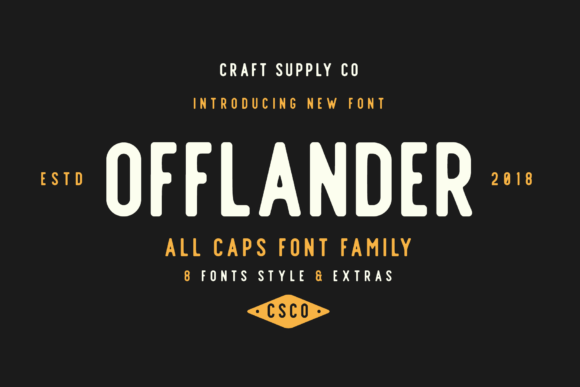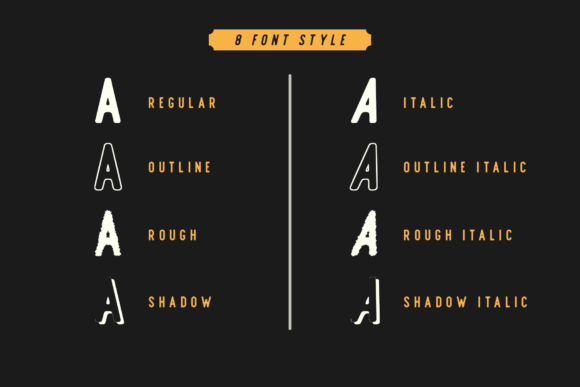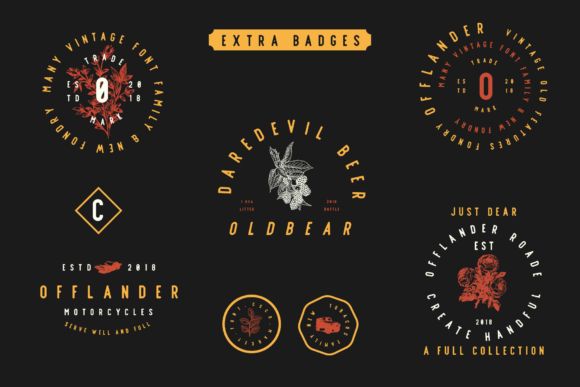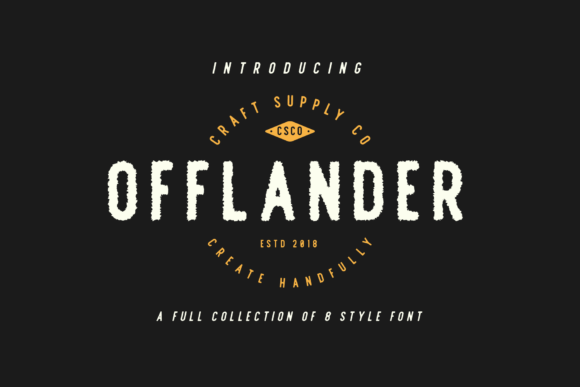
Offlander Family Font
About the Offlander Family Font
Step up your design game with Offlander Family Font, a font that exudes confidence and style. Offlander is an all caps font family of 8 which can be used to create almost all types of designs. Just use your imagination and the included graphic design set and your project will become more alive and look better than ever.
Offlander’s strong, geometric forms make it ideal for headlines, logos, and short, impactful text on posters or packaging. Its bold presence commands attention, but its all-caps nature limits readability in body text or long paragraphs; avoid using it for UI elements or extensive blocks of information.
The font’s personality is undeniably bold and modern. It projects confidence and a sense of authority. To soften its impact and add visual interest, pair Offlander with a clean sans-serif like Helvetica Neue for body copy, or a more playful script font such as Pacifico for secondary elements.
Consider pairing it with a contrasting serif like Playfair Display for a sophisticated and balanced feel, especially in branding projects requiring both headline and supporting text. This combination successfully blends the authoritative presence of Offlander with the refined elegance of a classic serif.
Offlander Family Font Usage Examples
Offlander Family Font Example